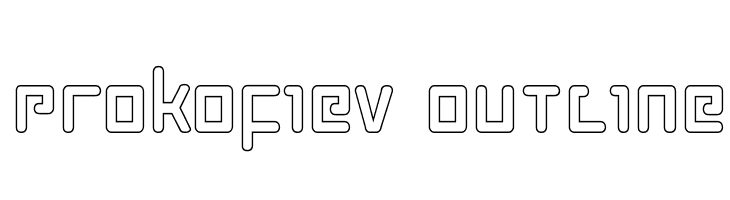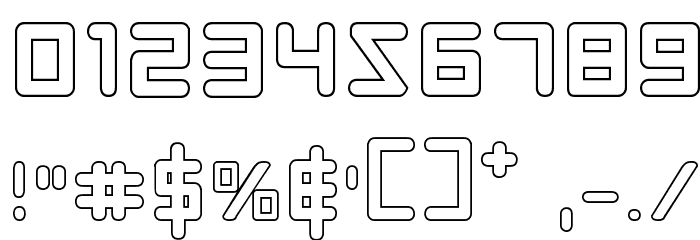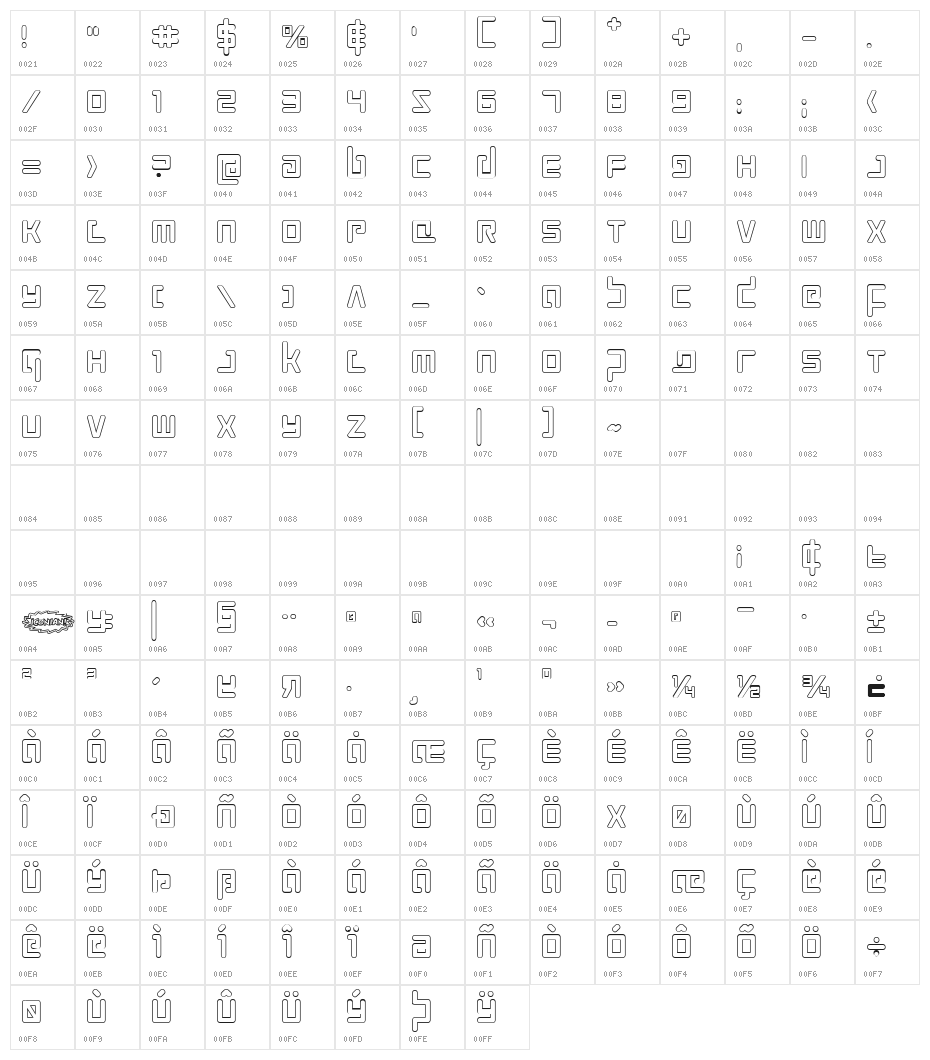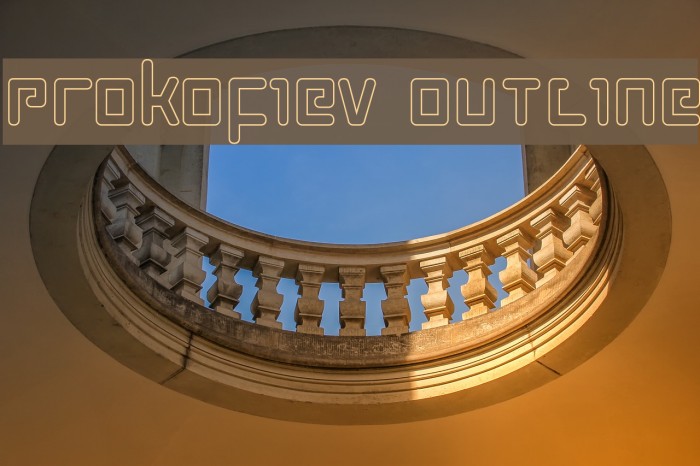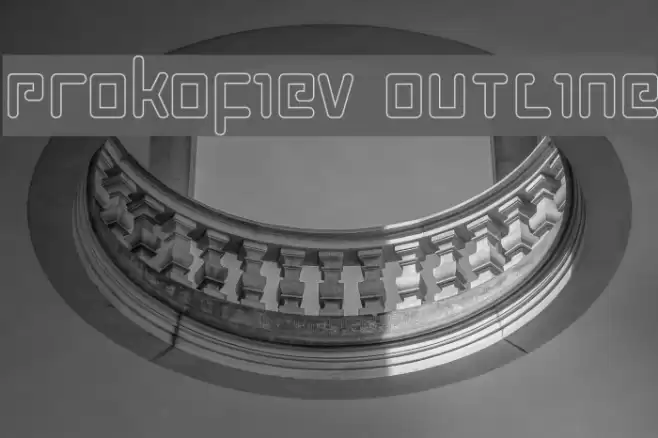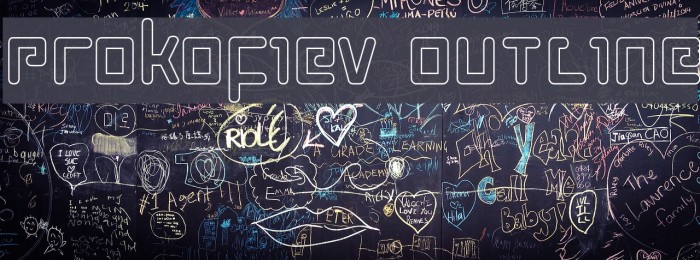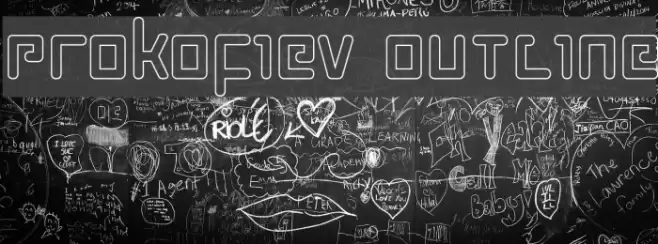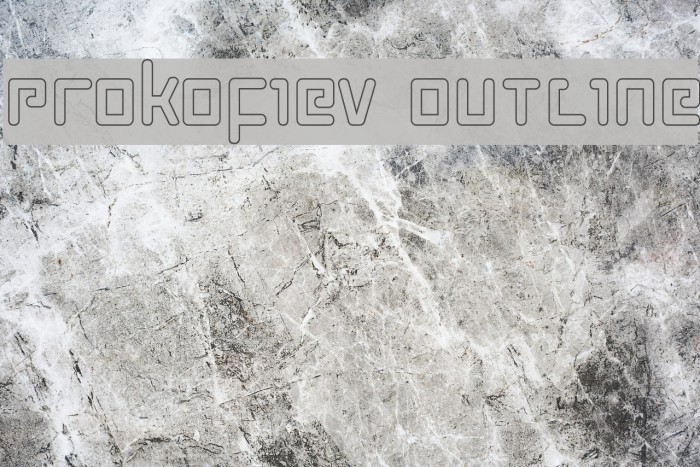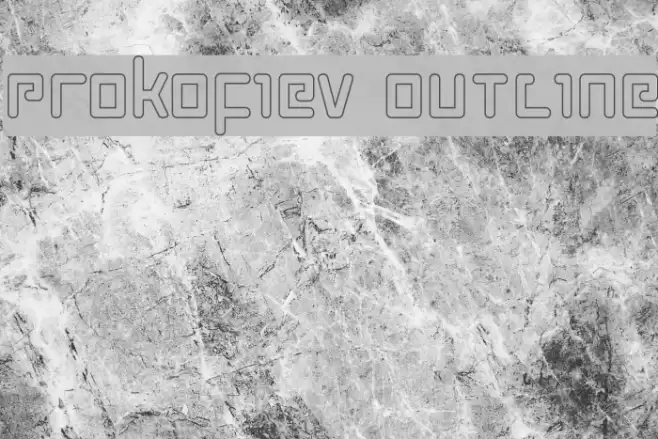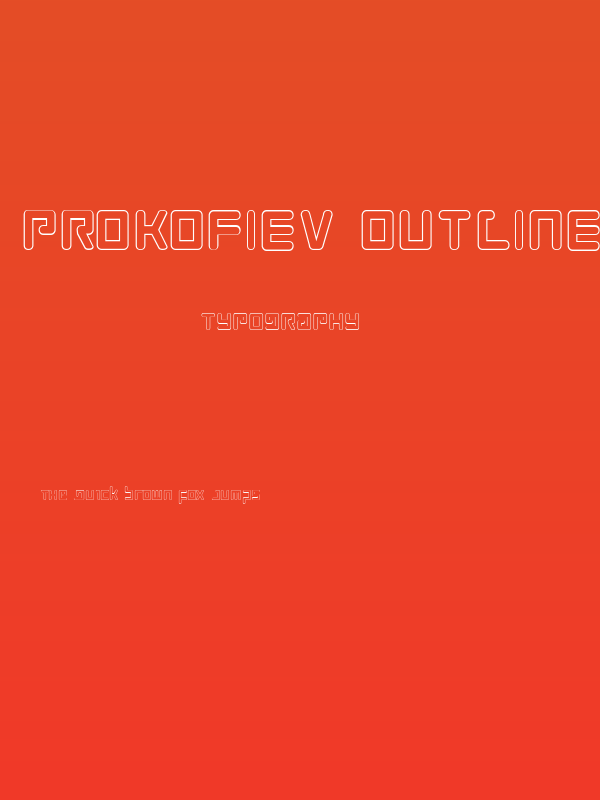
Prokofiev Outline Font
Prokofiev Outline Description
This font features a modern, geometric design with a distinct outline style. Each character is crafted with a consistent line weight, creating a cohesive and structured appearance. The letters are composed of straight lines and smooth curves, giving them a futuristic and technical feel. The uppercase and lowercase letters maintain a uniform height, while the numerals and special characters integrate seamlessly with the alphabet. The overall design is clean and minimalistic, making it suitable for a variety of applications where a contemporary and stylish look is desired.
| Proposed Projects | Ideal for tech branding, futuristic posters, digital interfaces, and modern logos. |